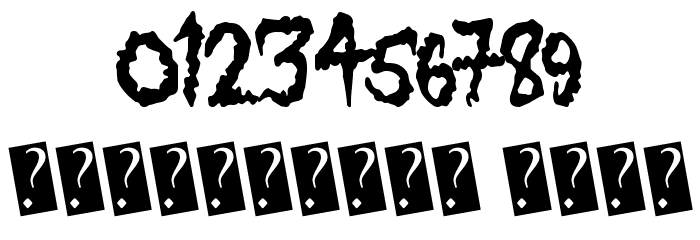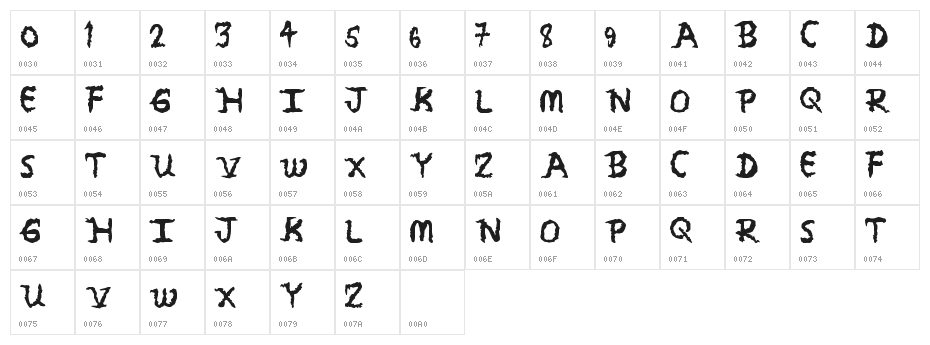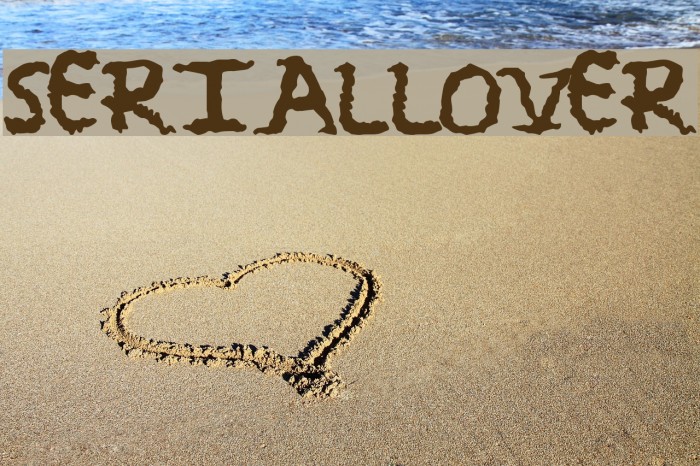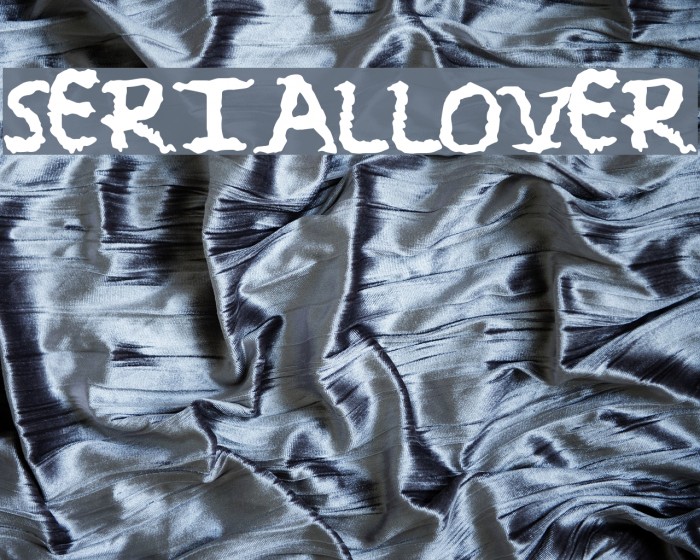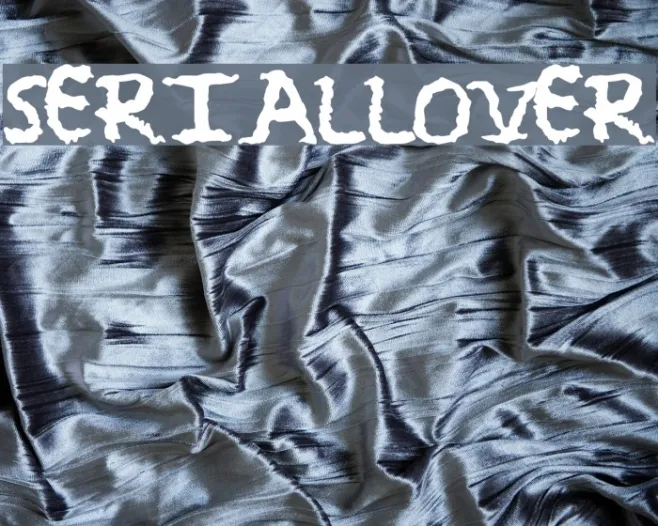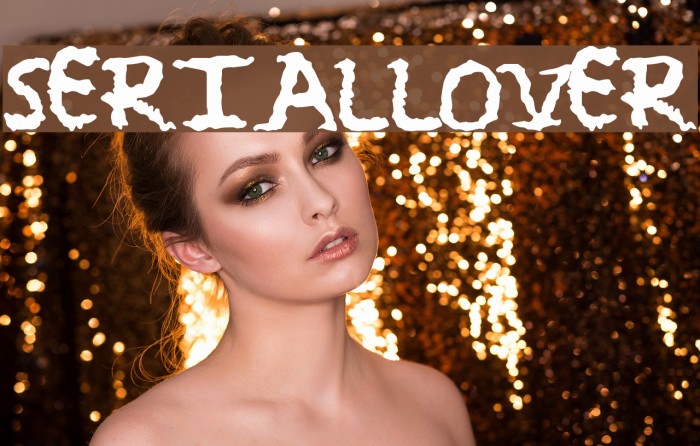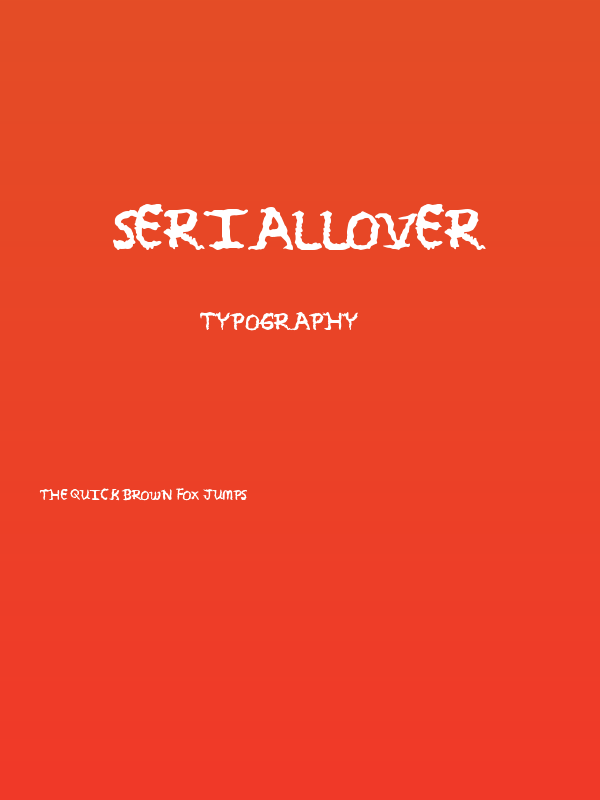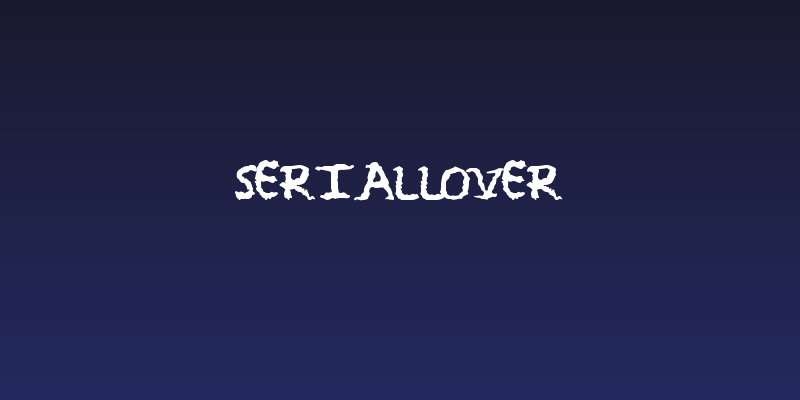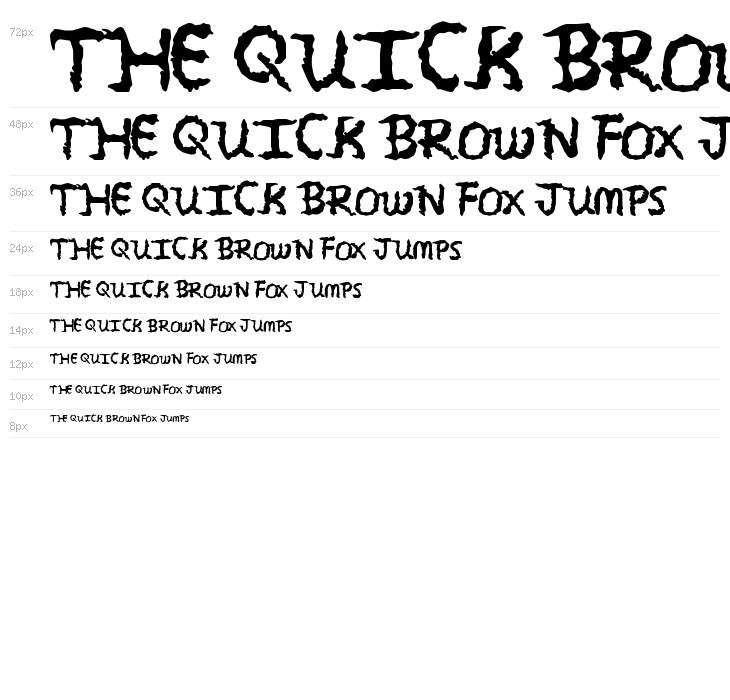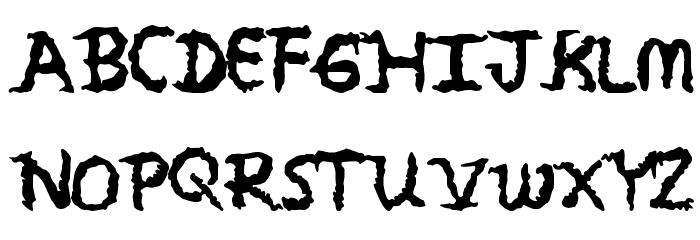
SerialLover Font
SerialLover Description
This font features a rugged and distressed appearance, reminiscent of hand-drawn or brush-stroke styles. The characters have an uneven, jagged edge, giving them a raw and edgy look. The uppercase and lowercase letters maintain a consistent style, with each character exhibiting unique imperfections that add to the overall aesthetic. Numbers and special characters follow the same design principles, ensuring a cohesive look across all elements. This font is ideal for projects that require a bold, attention-grabbing style with a touch of grunge or horror.
| Proposed Projects | Ideal for horror-themed posters, edgy branding, album covers, and creative design projects requiring a bold statement. |